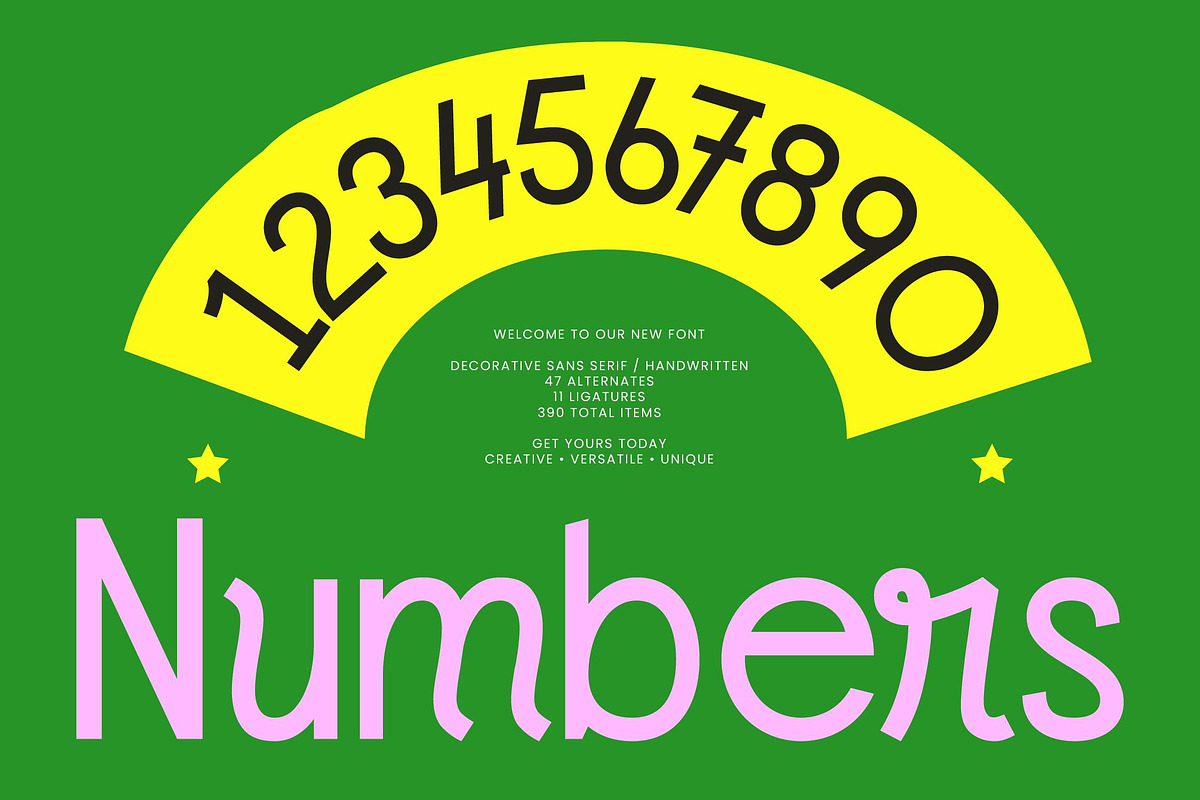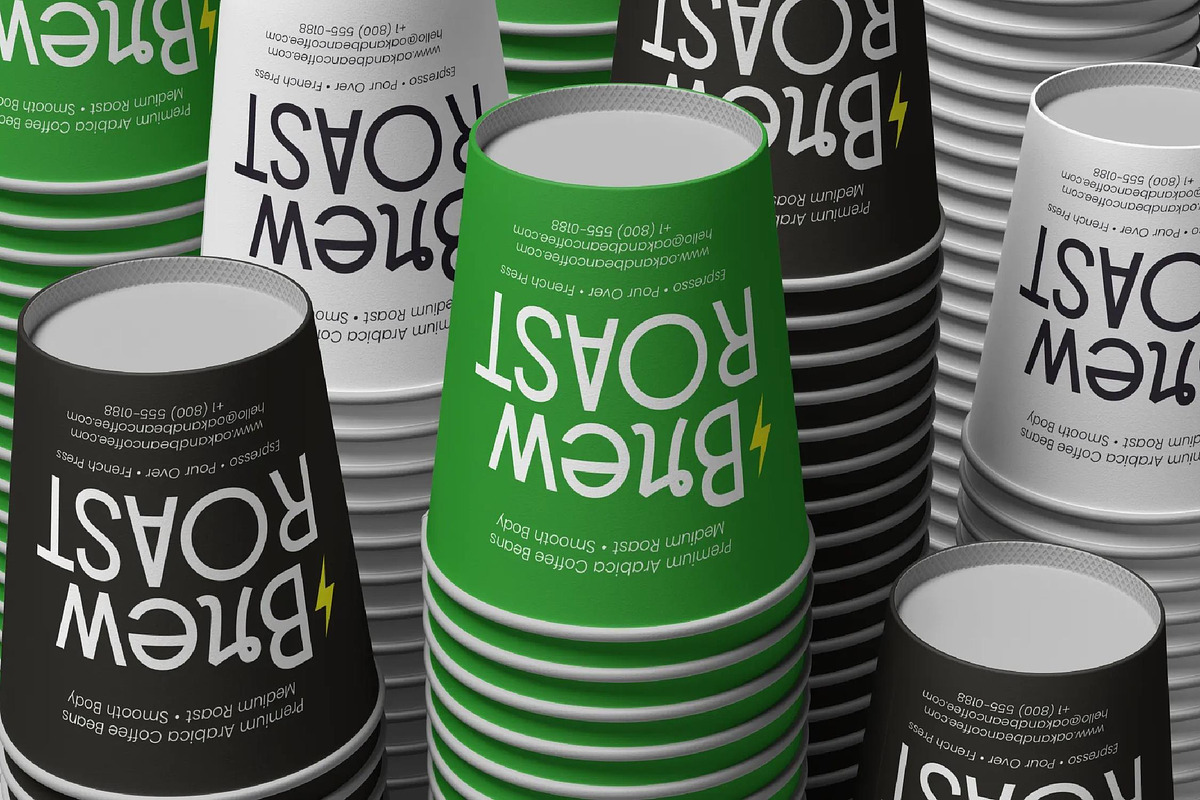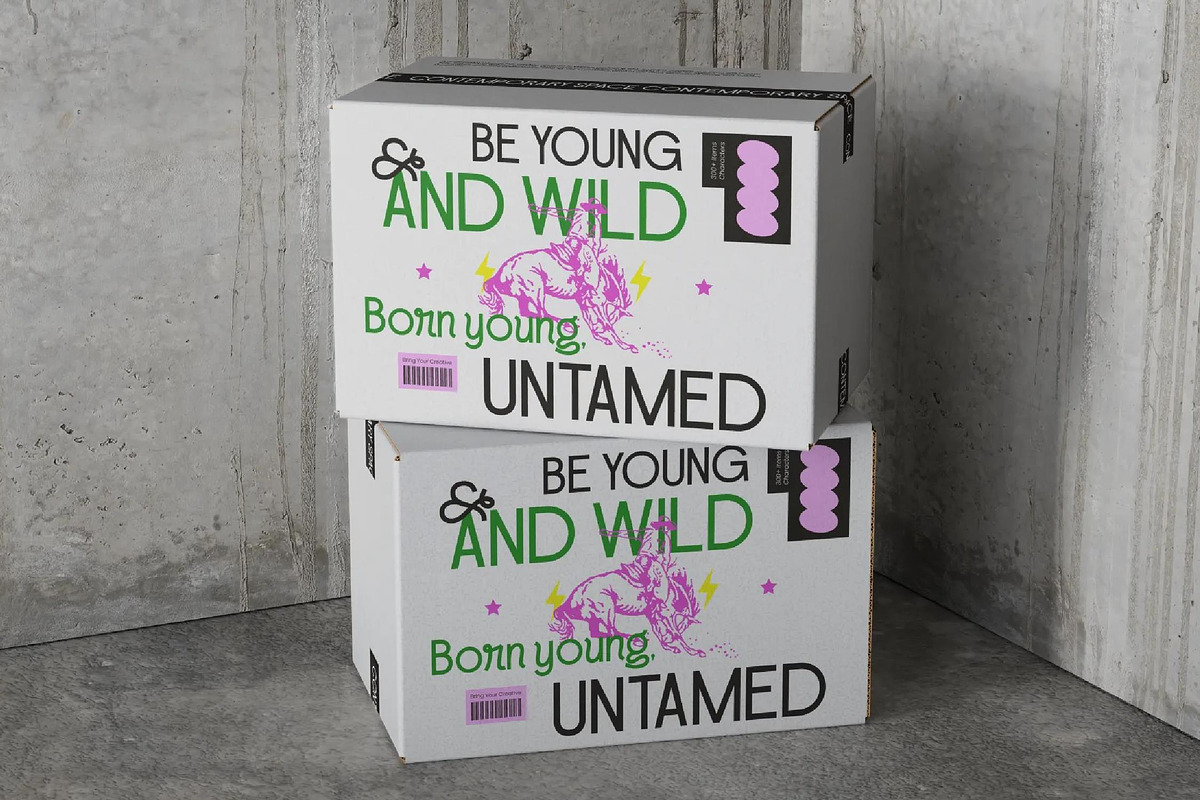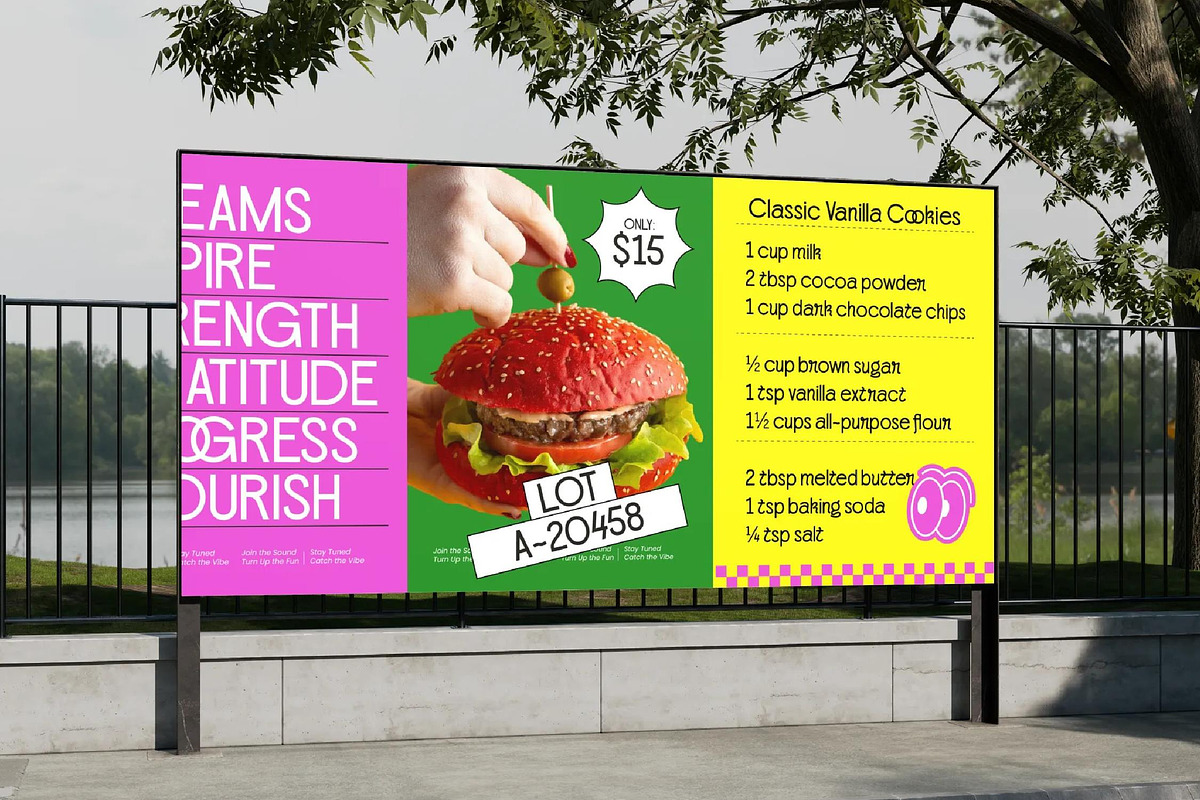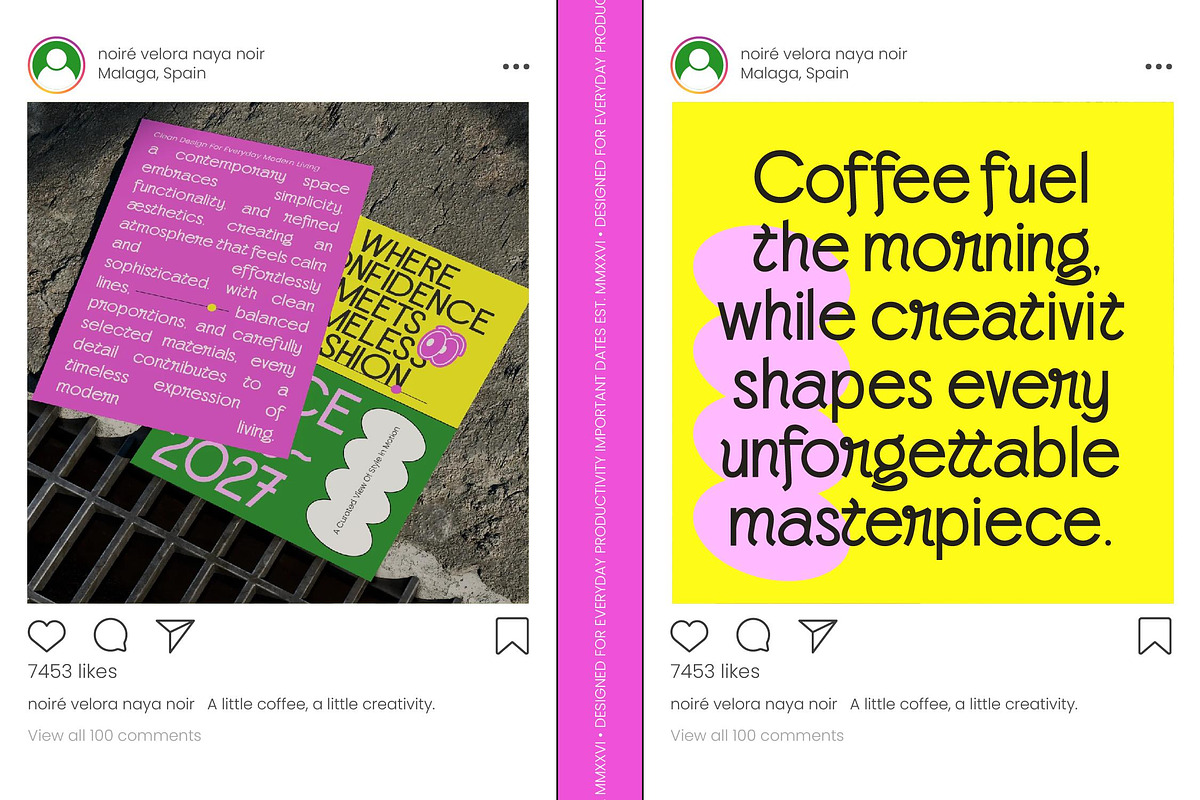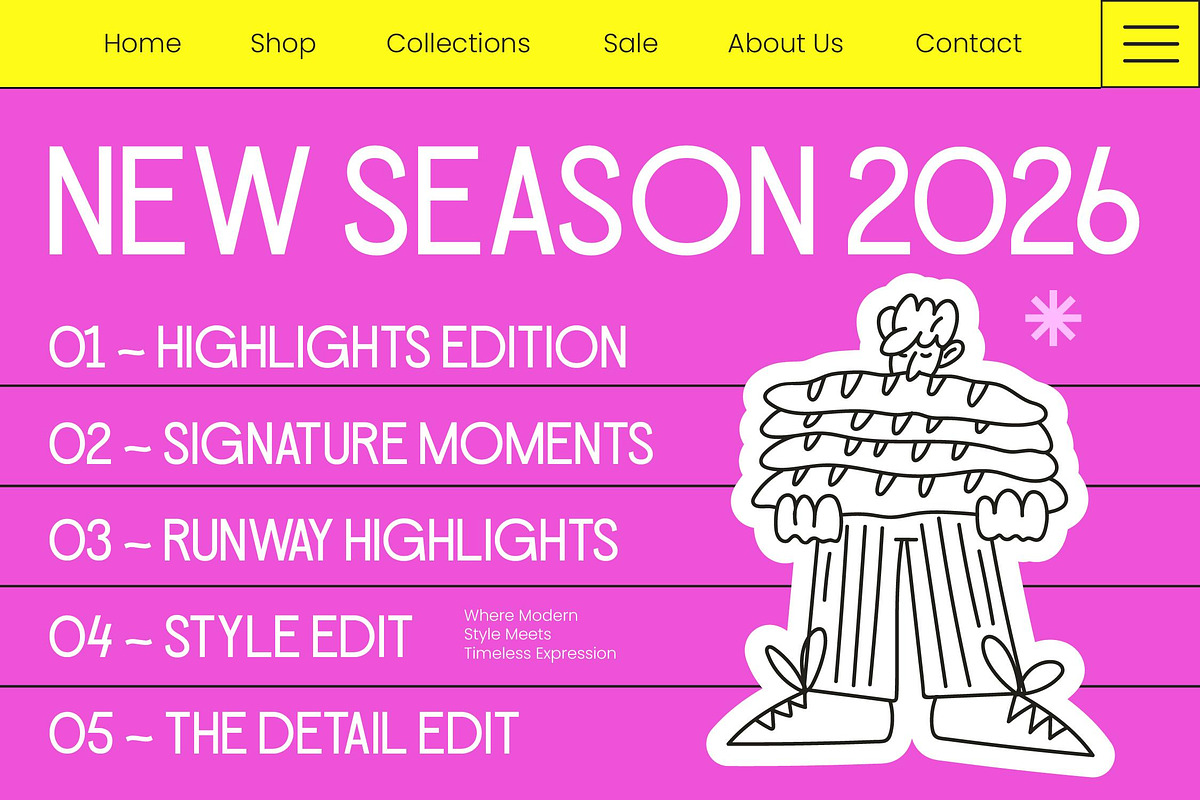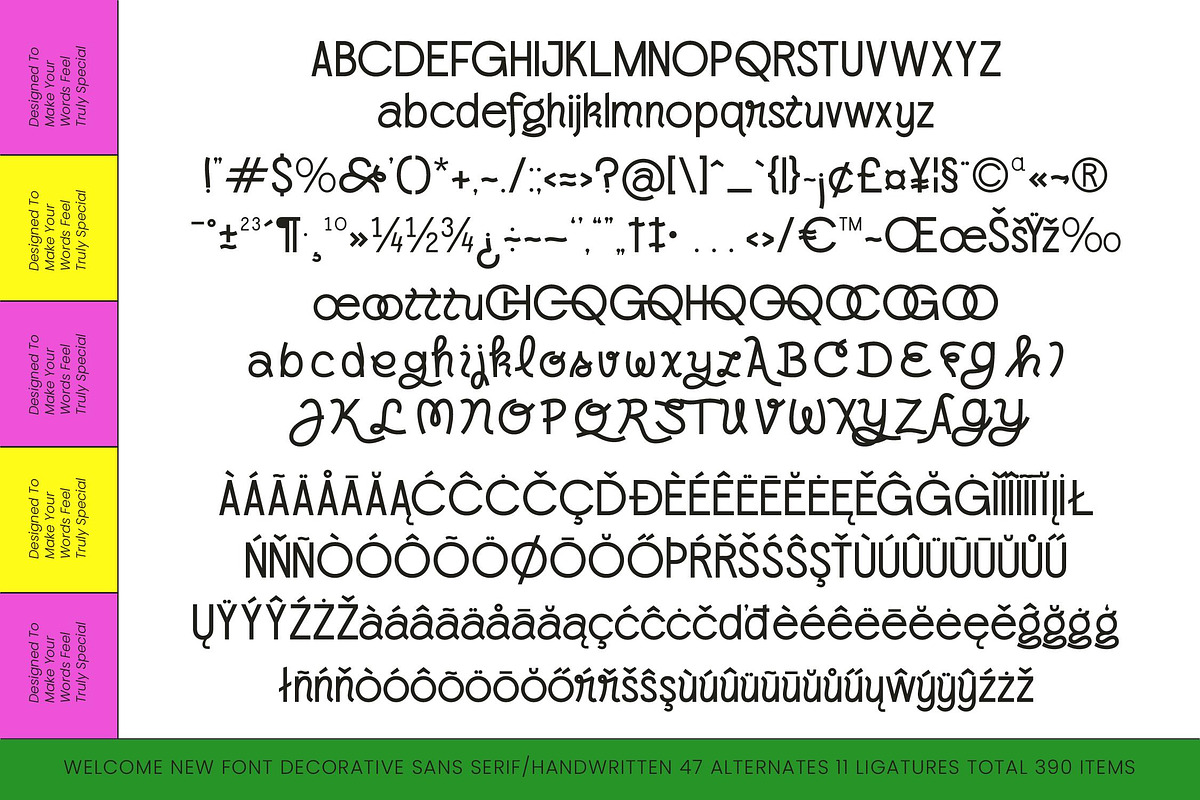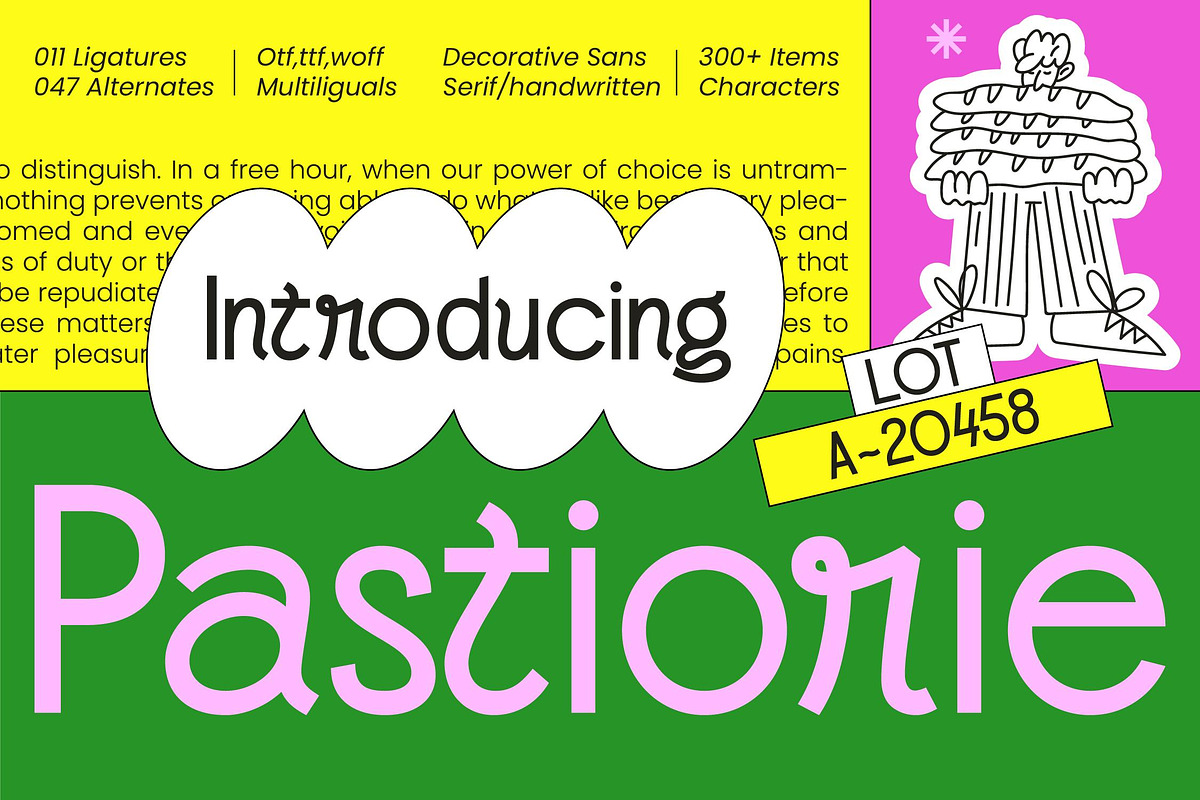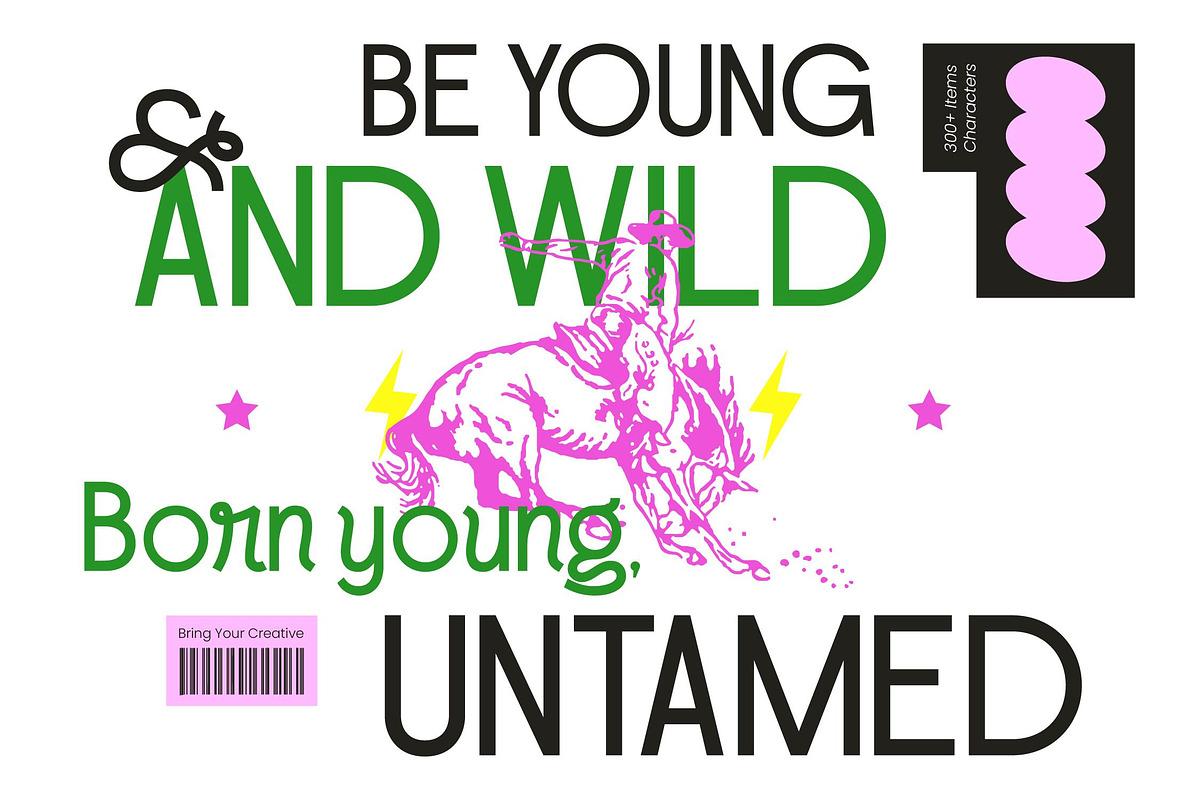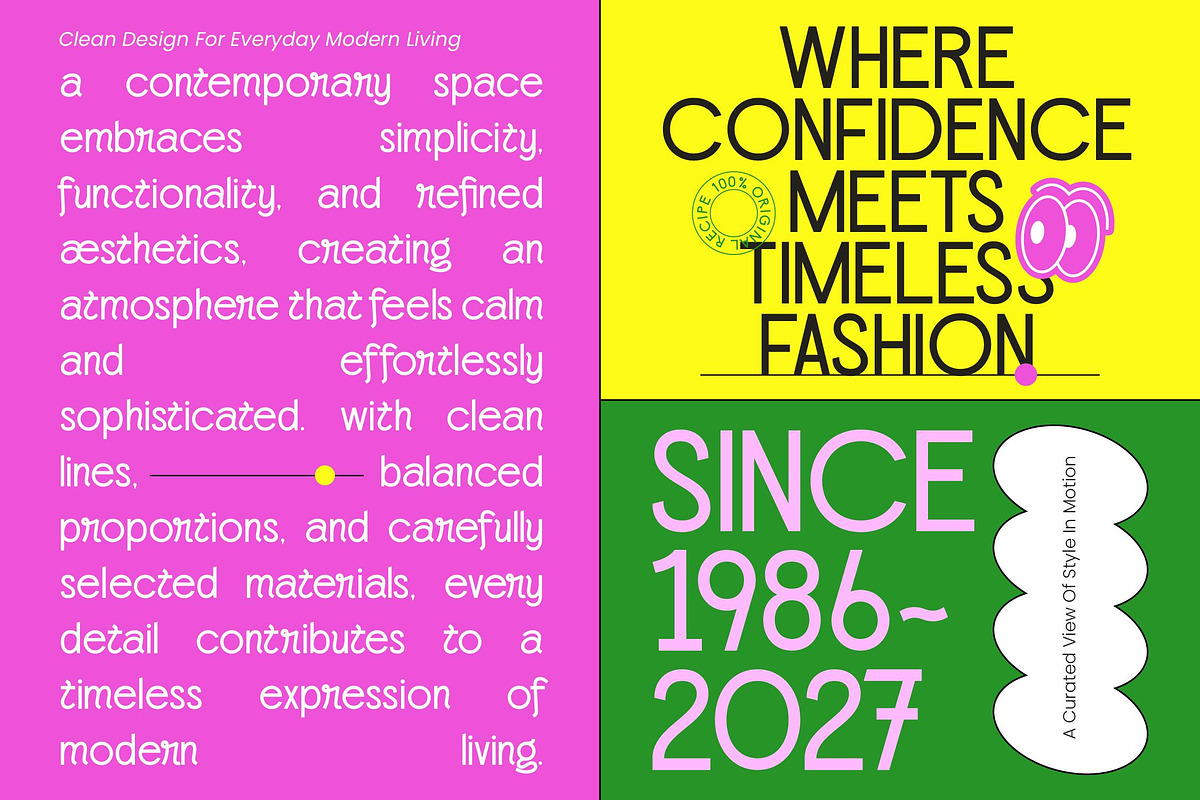
Pastiorie Decorative Sans Serif
Pastiorie – Decorative Sans Serif
Elevate your creative vision with a typeface that masterfully blends artistic flair with modern structure. Pastiorie – Decorative Sans Serif is a sophisticated yet playful choice for designers seeking a unique visual identity that stands out in a crowded market. By balancing the refined geometry of a sans serif with the organic charm of handwritten aesthetics, it provides a high-contrast look that is both approachable and high-end.
Experience unparalleled flexibility with a robust set of features designed for global impact and seamless integration. Boasting over 300 characters, including 11 unique ligatures and 47 stylized alternates, this font offers endless customization possibilities for discerning professionals. With its extensive multilingual support, Pastiorie – Decorative Sans Serif adapts seamlessly across global markets, making it incredibly versatile for international projects.
Transform your brand narrative with the ideal application for luxury branding, creative packaging, and high-end editorial design. This typeface is perfect for logo design, fashion retail, and social media graphics that require a distinctive, human touch. Whether used for bold headlines or chic stationery, it delivers an authentic aesthetic that resonates with contemporary audiences and enhances brand recognition.